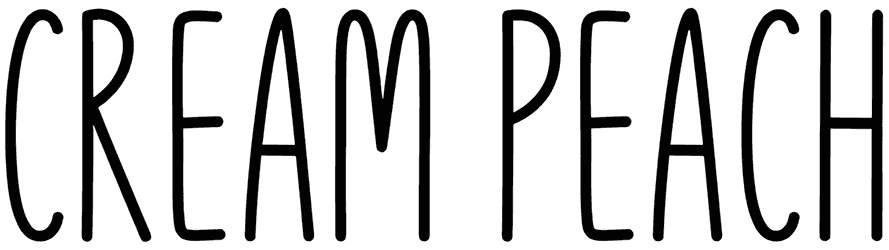
Cream Peach Font
If you desire to promote your design with a minimal and sweet face, this ice cream font can be the answer. Cream Peach, with its modern, modest, and smooth letters, is an apt item for various subjects and projects. There are no lowercase letters, but it would be a nice illustration for your intended layouts, like planners, mugs, logotypes, invitations, and whatnot.